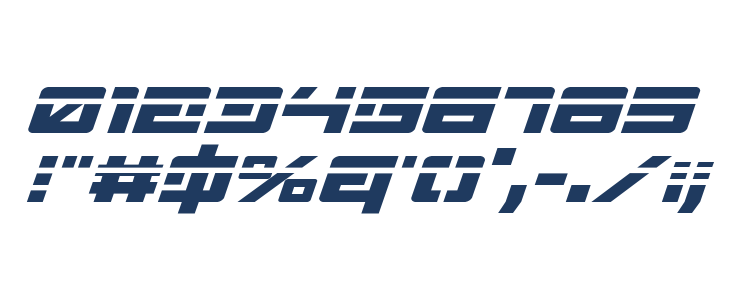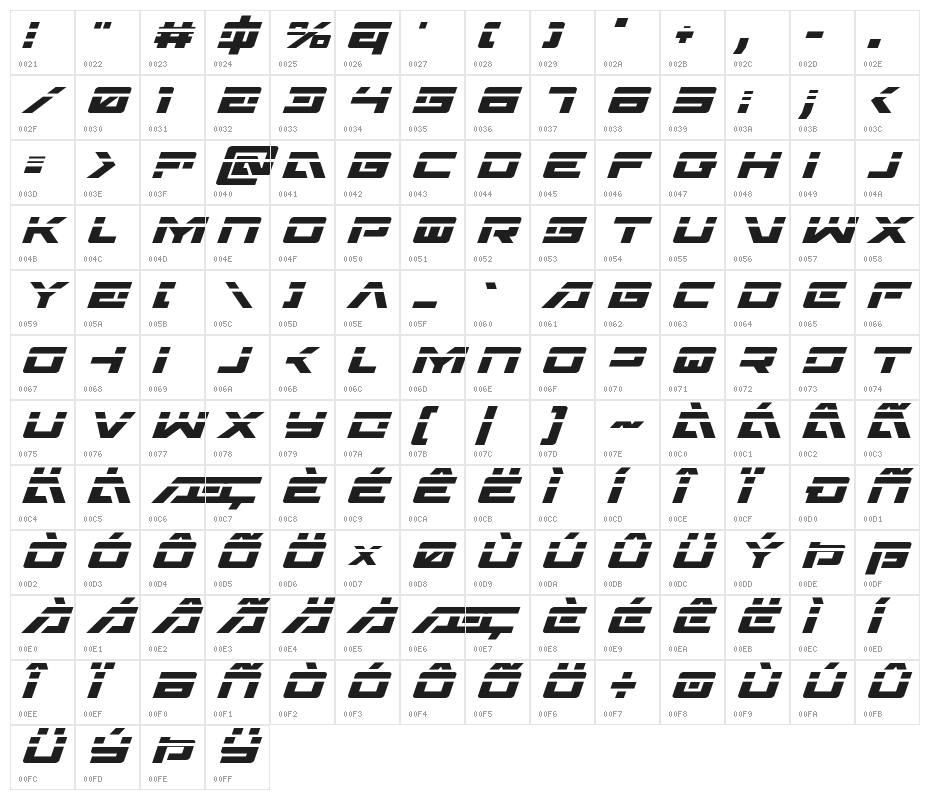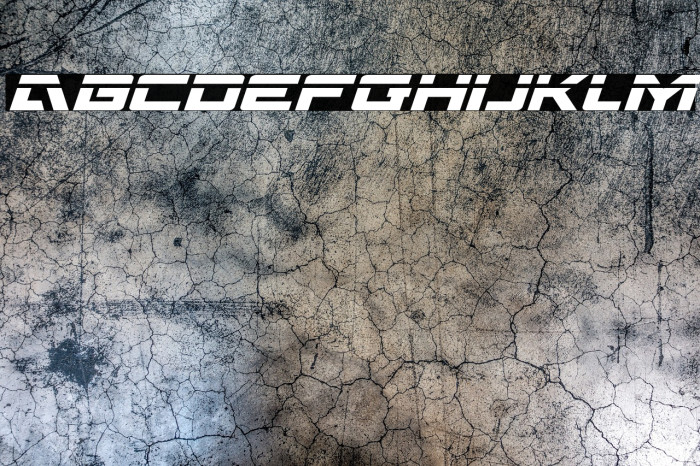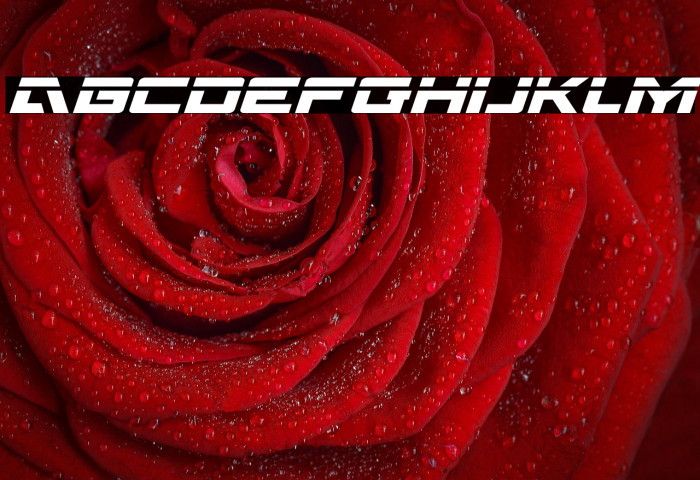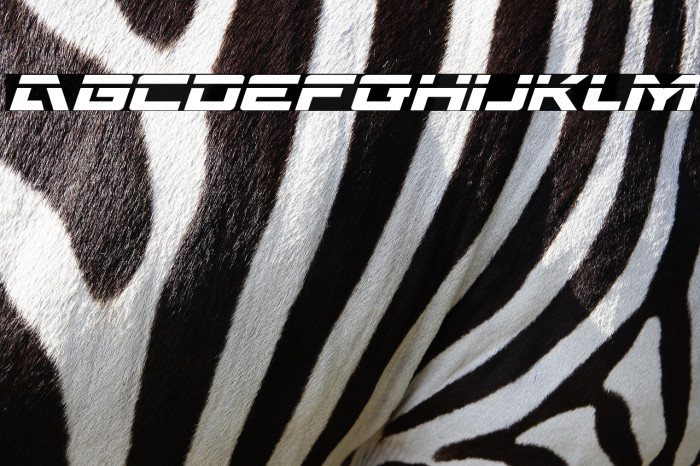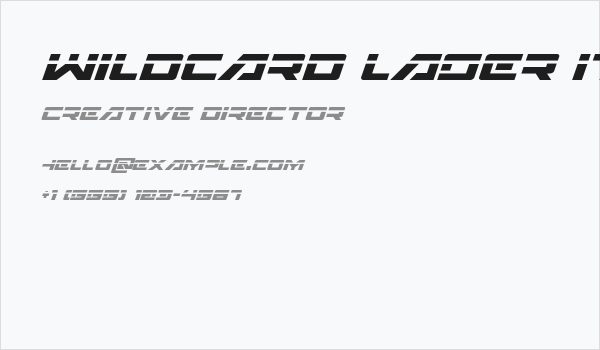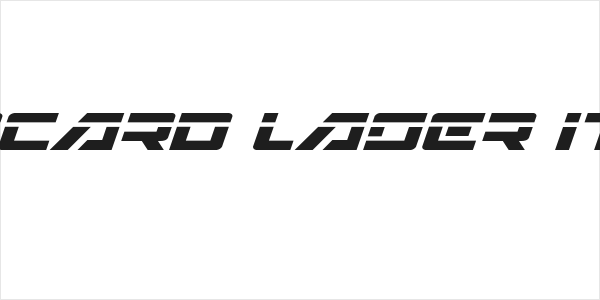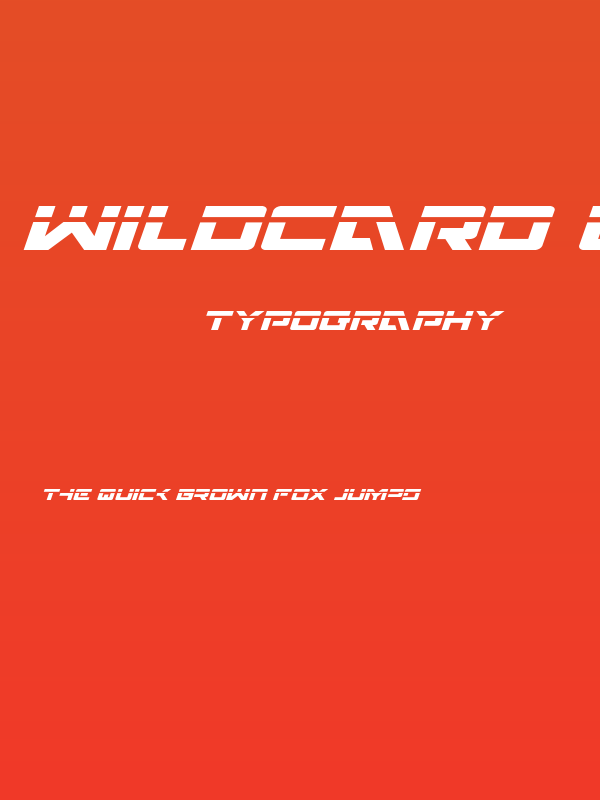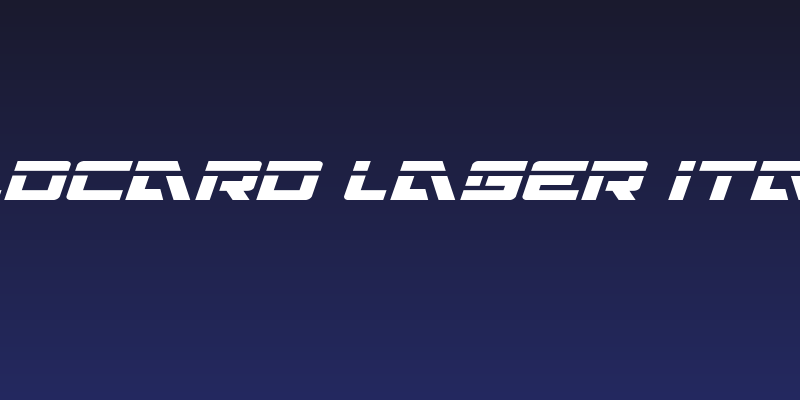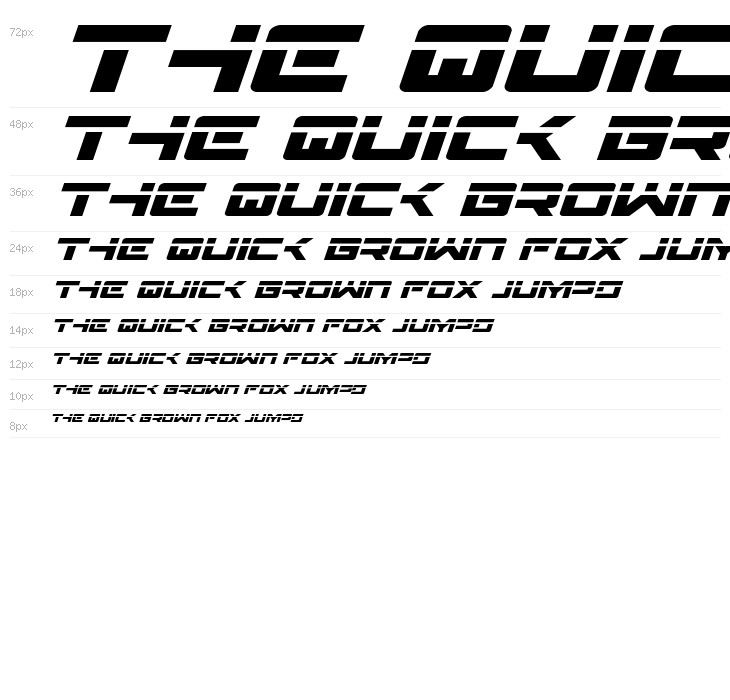
Wildcard Laser Italic Font
Wildcard Laser Italic Description
This font features a futuristic and angular design, characterized by sharp edges and a slanted, italicized style. The uppercase and lowercase letters maintain a consistent geometric form, with a distinct emphasis on horizontal lines and diagonal cuts. The numbers and special characters follow the same aesthetic, ensuring uniformity across the typeface. The bold strokes and unique shapes give it a dynamic and energetic appearance, making it suitable for modern and tech-oriented projects.
| Proposed Projects | Ideal for tech branding, sci-fi movie posters, video game titles, and modern digital interfaces. |